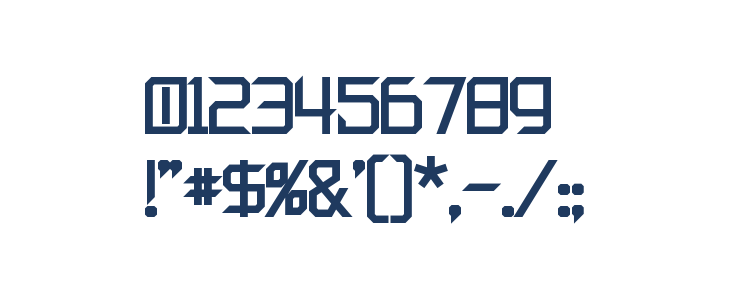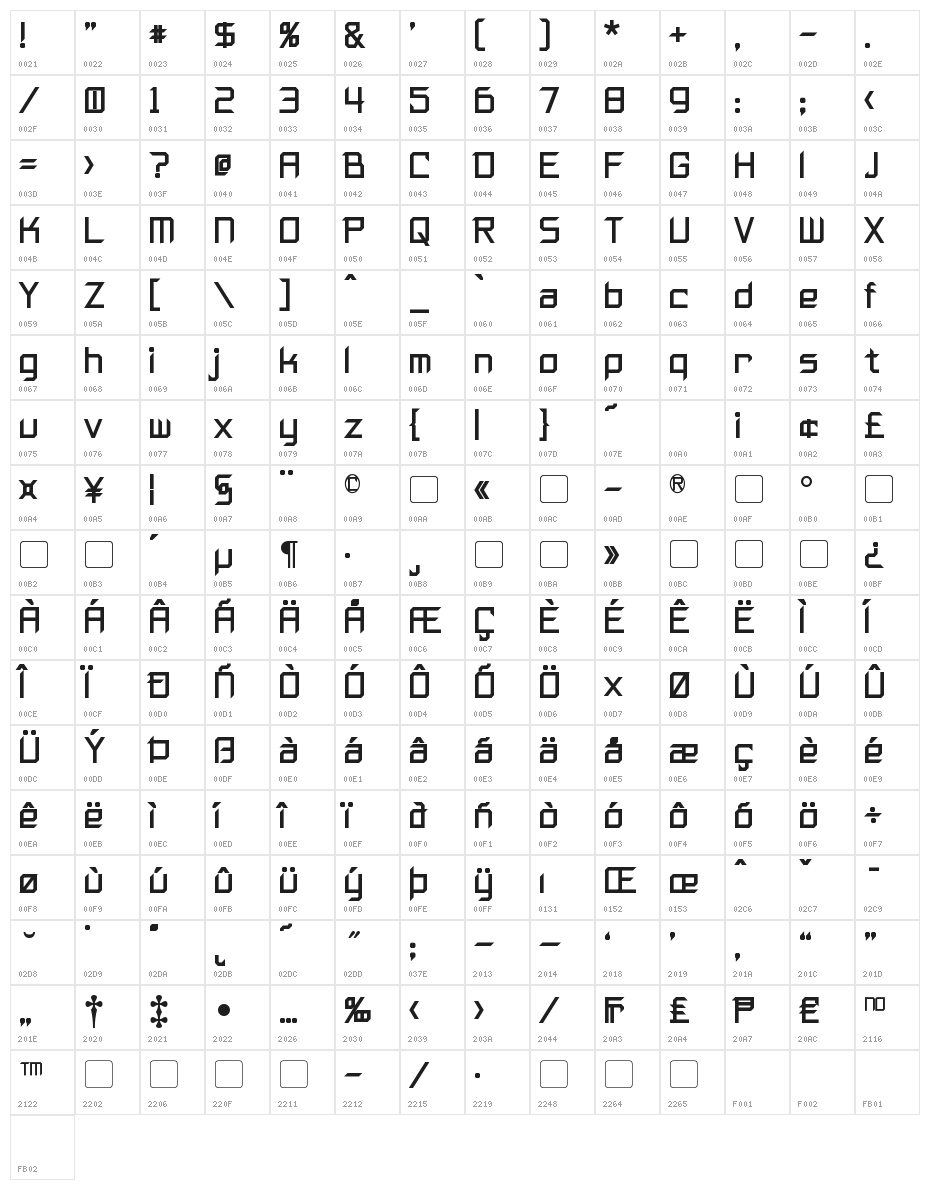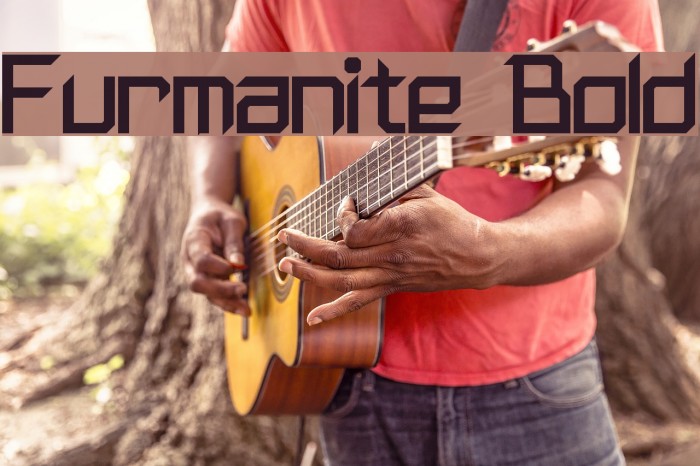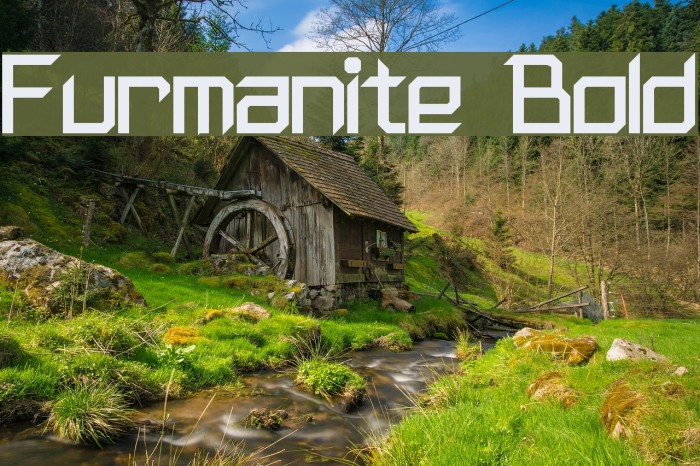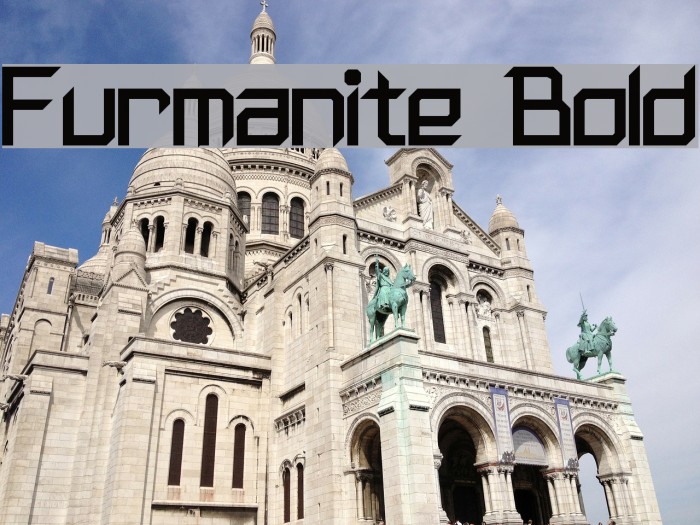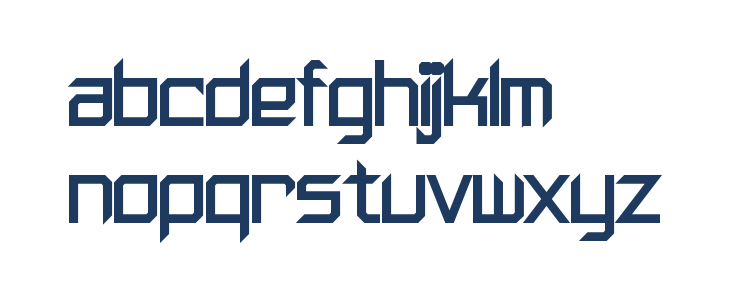
Furmanite Bold Font
Furmanite Bold Description
This font features a bold, geometric design with sharp angles and a futuristic aesthetic. The characters are constructed with a consistent stroke width, giving it a uniform appearance. Its angular and edgy style makes it stand out, with each letterform exhibiting a unique, almost mechanical structure. The uppercase and lowercase letters maintain a cohesive look, while the numerals and special characters integrate seamlessly with the overall design. This font is ideal for projects that require a modern and bold statement, offering a distinctive look that captures attention.
Overall StyleFuturistic, Modern
Proposed ProjectsIdeal for technology branding, sci-fi posters, video game titles, and modern logos.